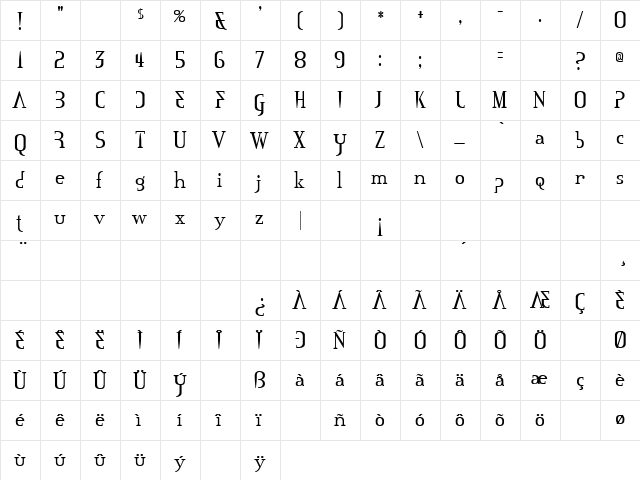
Mississauga Regular
| Foundry | Larabie Fonts |
Design Context for Mississauga Typeface
Mississauga is a composed and adaptable typeface that performs quietly and consistently across a wide range of design contexts.